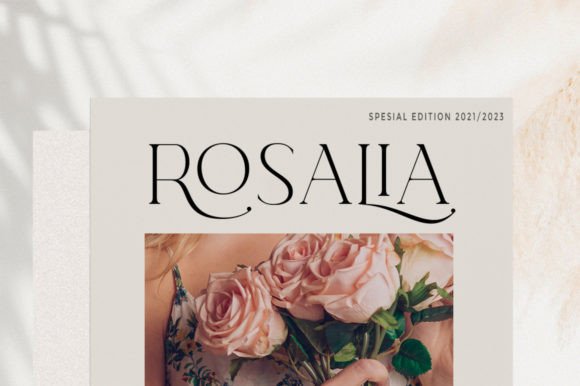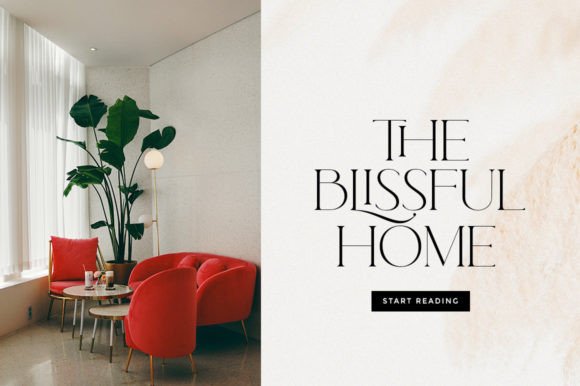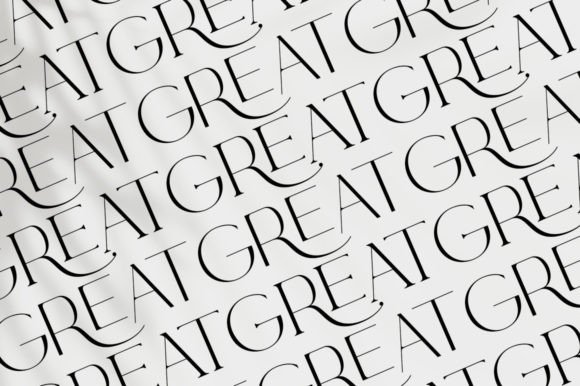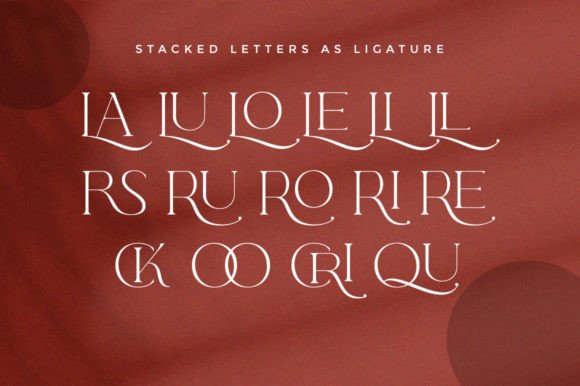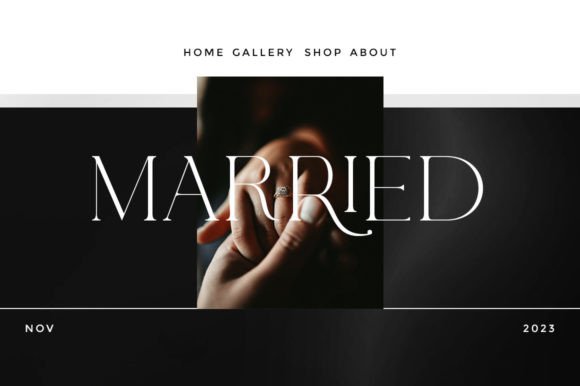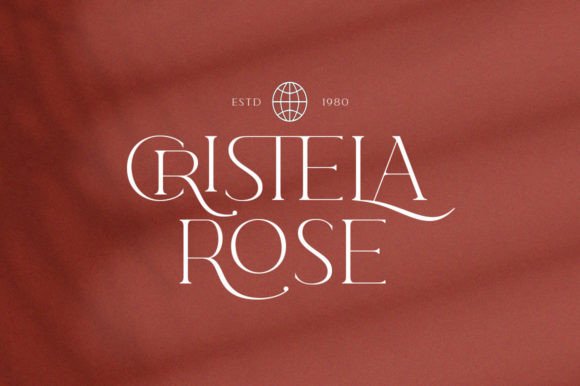
Cristola Display Font: Elevate Your Designs with Elegance and Sophistication
In the world of typography, fonts play a crucial role in conveying the tone and aesthetic of a design. For those seeking a sophisticated and charming font with a fashionable touch, Cristola Display is an excellent choice. This stunning font is specially designed for luxury, elegant, and feminine projects, making it perfect for creating modern and chic designs.
What Makes Cristola Display Font Stand Out?
Cristola Display font boasts a unique and stylish design that is sure to elevate your projects. Its elegant and refined features make it an ideal choice for designers and crafters looking to add a touch of sophistication to their work. Whether you’re creating a logo, branding materials, or marketing collateral, Cristola Display font is sure to make a lasting impression.
Key Features of Cristola Display Font
• Sophisticated and Charming Design: Cristola Display font features a beautiful and stylish design that exudes elegance and refinement.
• Luxury and Feminine Touch: This font is specially designed for luxury, elegant, and feminine projects, making it perfect for designers and crafters looking to create modern and chic designs.
• PUA Encoded: Cristola Display font is PUA encoded, which means you can access all the glyphs and ligatures with ease. This feature makes it easy to use and customize the font to suit your design needs.
• Modern and Chic Designs: With Cristola Display font, you can create modern and chic designs that are sure to impress. Its stylish and refined features make it perfect for a wide range of design projects.
Why Choose Cristola Display Font?
There are many fonts available in the market, but Cristola Display font stands out from the rest due to its unique and stylish design. Here are some reasons why you should choose Cristola Display font for your next design project:
• Unique and Stylish Design: Cristola Display font features a unique and stylish design that is sure to make your designs stand out.
• Elegant and Refined Features: This font boasts elegant and refined features that make it perfect for luxury, elegant, and feminine projects.
• Ease of Use: Cristola Display font is PUA encoded, making it easy to use and customize.
• Versatility: This font is suitable for a wide range of design projects, including logos, branding materials, marketing collateral, and more.
In conclusion, Cristola Display font is a sophisticated and charming font with a fashionable touch. Its elegant and refined features make it perfect for luxury, elegant, and feminine projects. With its PUA encoded feature, you can access all the glyphs and ligatures with ease. Whether you’re a designer or crafter, Cristola Display font is an excellent choice for creating modern and chic designs. So why wait? Download Cristola Display font today and elevate your designs with elegance and sophistication.